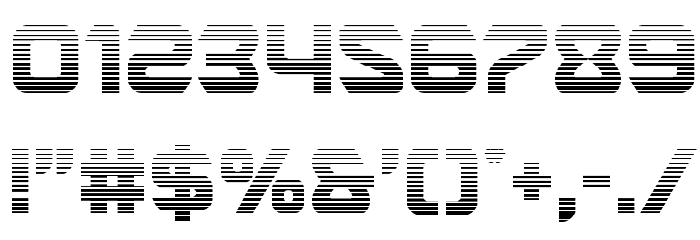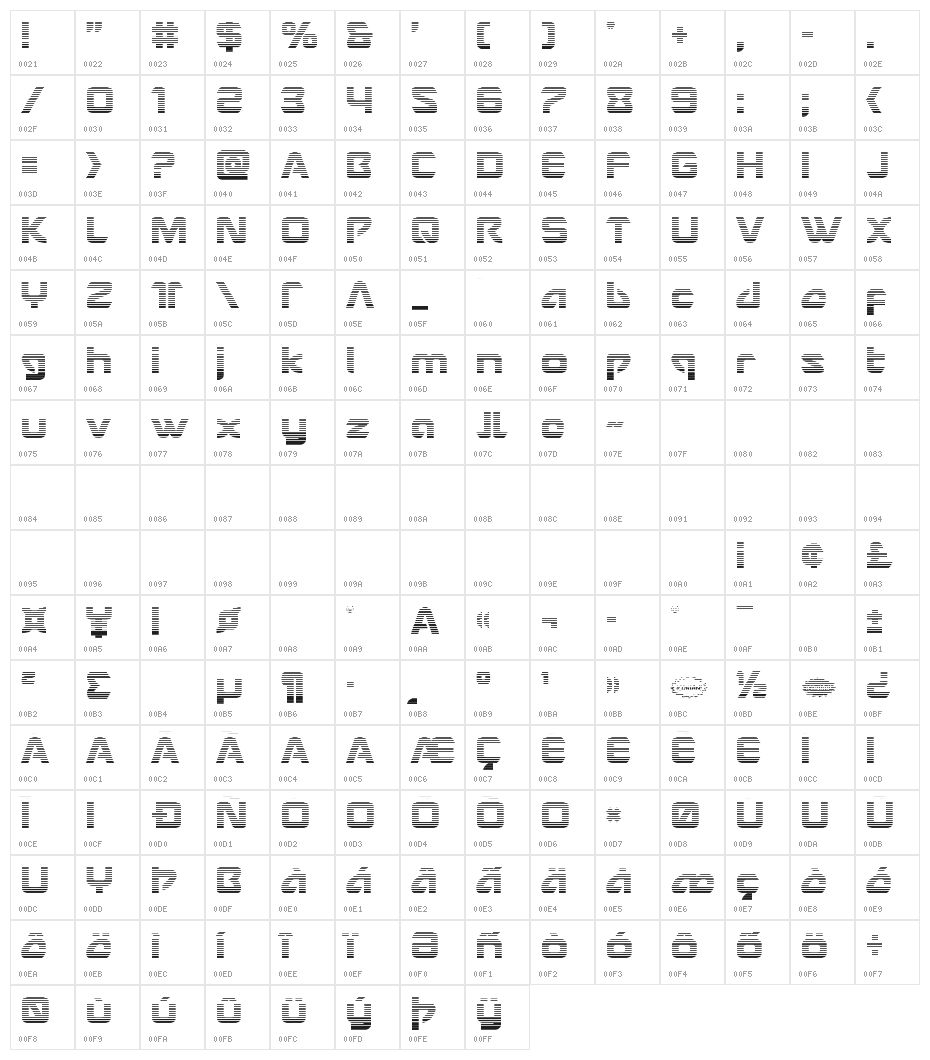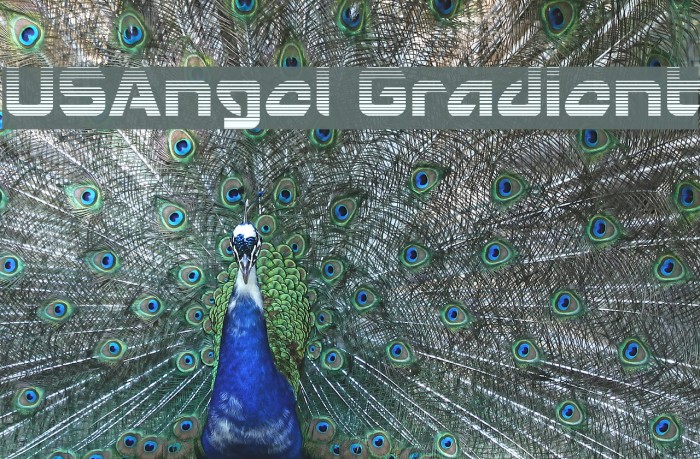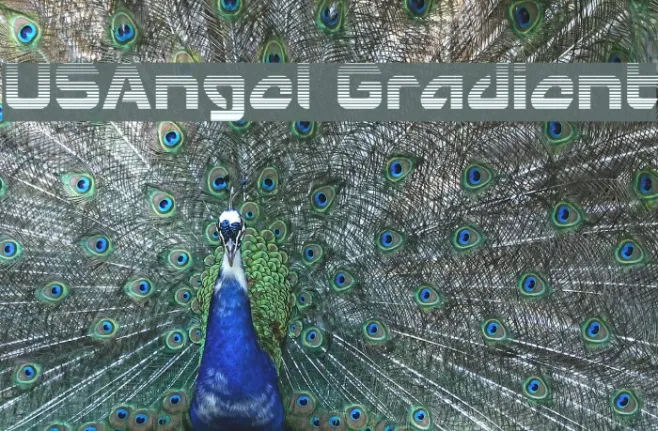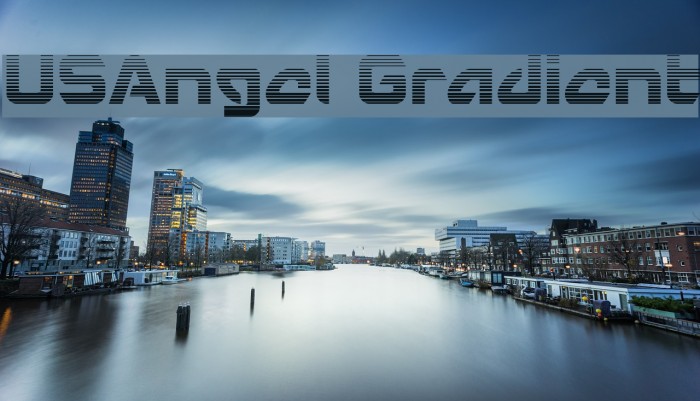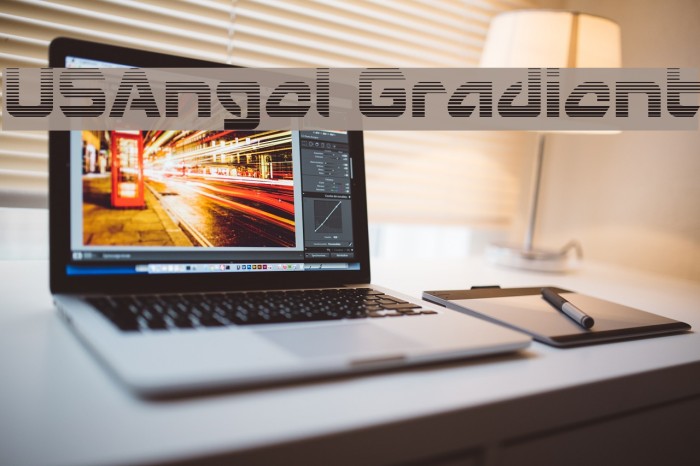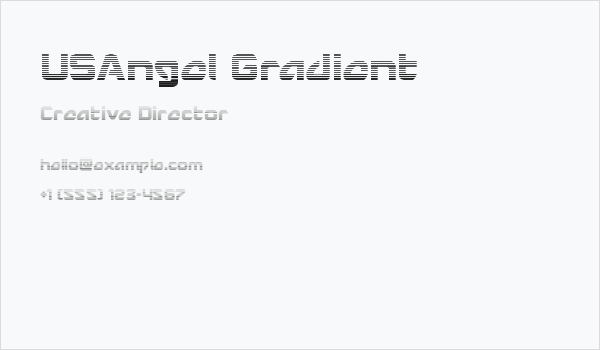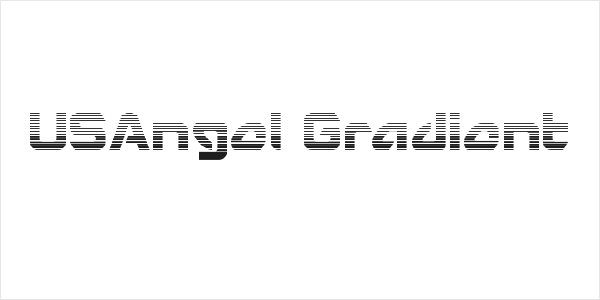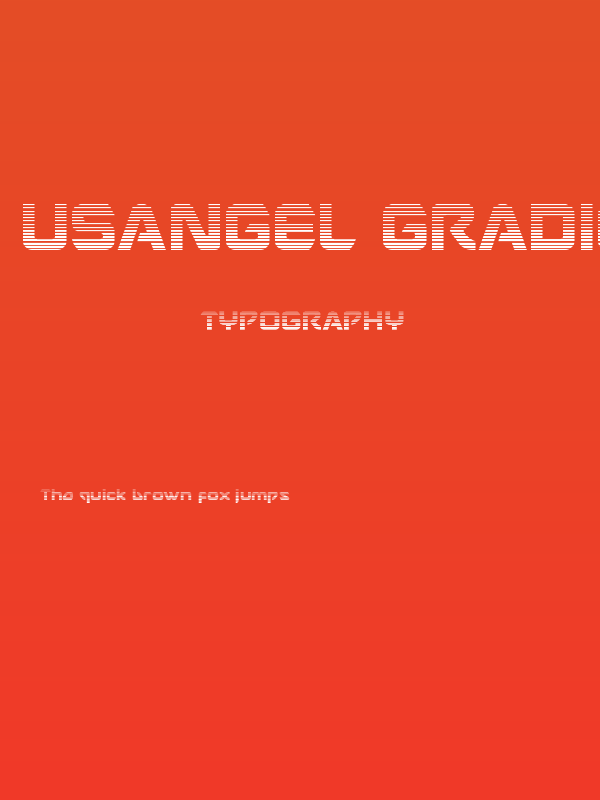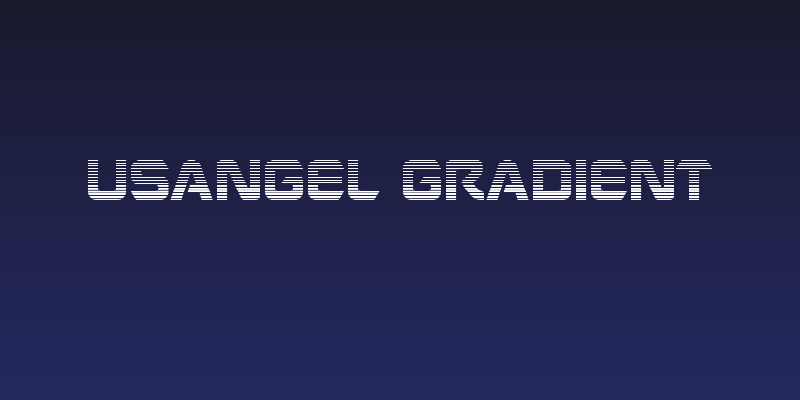
USAngel Gradient Font
USAngel Gradient Description
This font features a unique striped pattern that gives it a modern and dynamic appearance. The characters are composed of horizontal lines that create a gradient effect, adding depth and visual interest. The uppercase and lowercase letters maintain a consistent style, with clean, geometric shapes that are both bold and eye-catching. The numbers and special characters follow the same design principles, ensuring a cohesive look across all elements. This font is ideal for projects that require a futuristic or tech-inspired aesthetic, making it suitable for digital media, branding, and advertising.